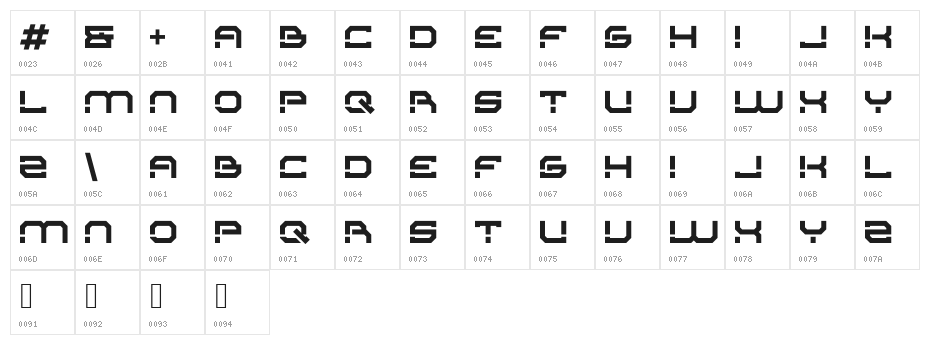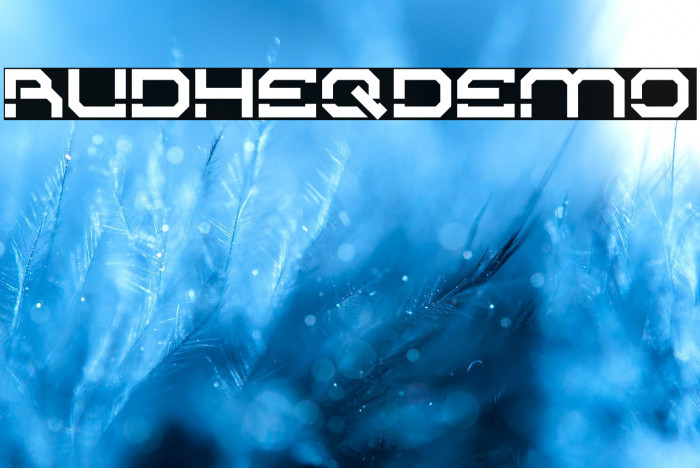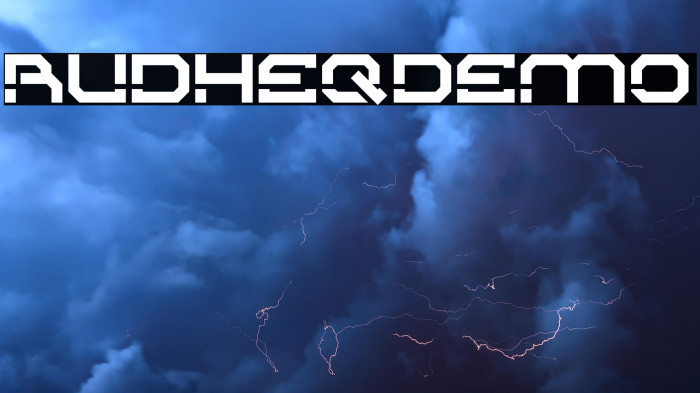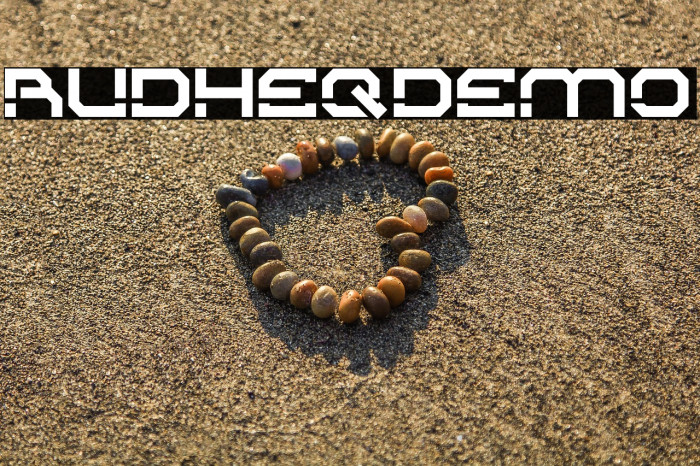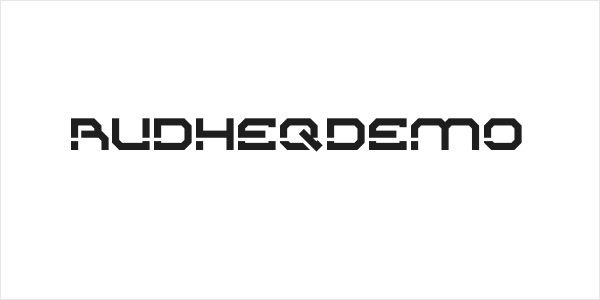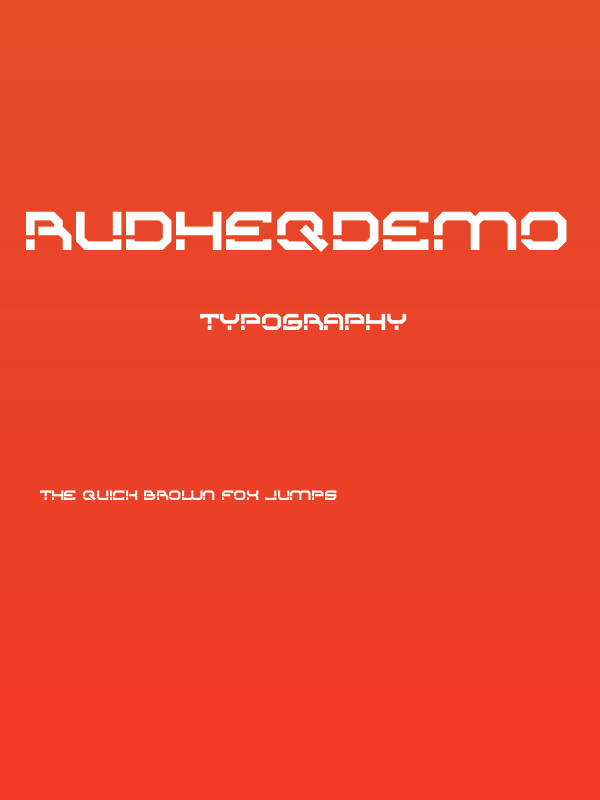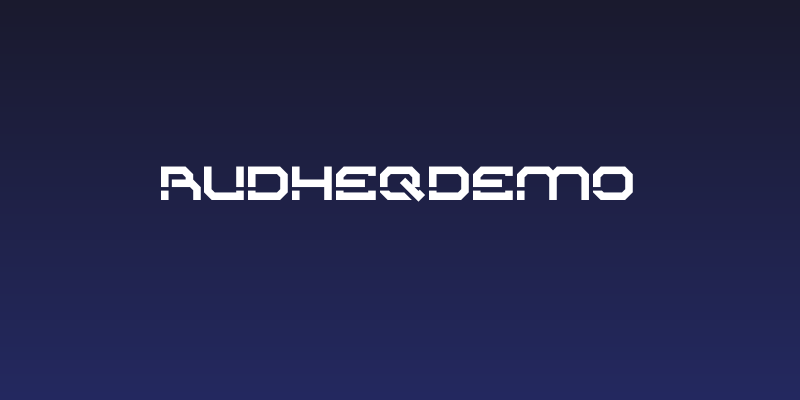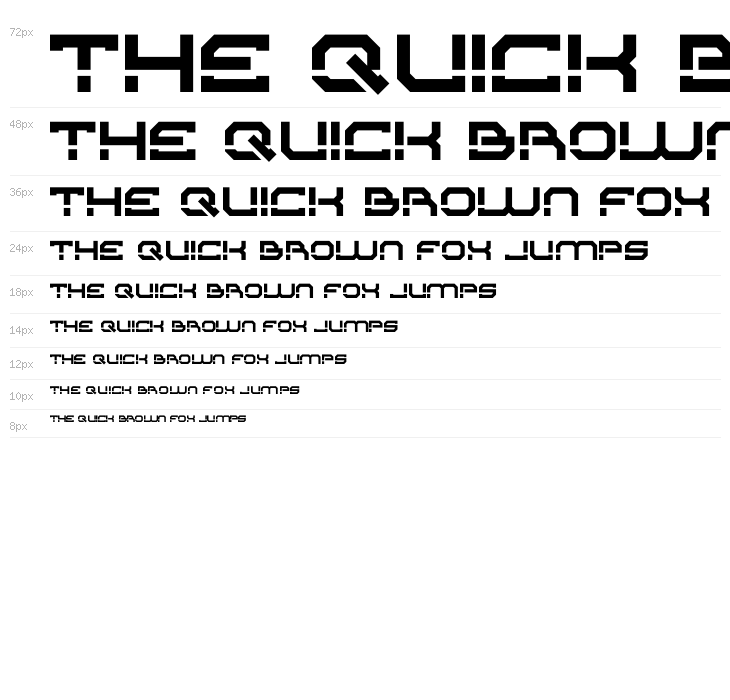
RudheqDemo Font
RudheqDemo Description
This font features a futuristic and geometric design, characterized by its bold, angular shapes and distinct cut-out sections within each character. The uppercase letters are uniform in height, with a consistent width that gives the typeface a monospaced appearance. The lowercase letters maintain the same geometric style, offering a cohesive look across both cases. Numbers and special characters follow the same design principles, ensuring a unified aesthetic throughout. The font's unique style makes it stand out, ideal for projects that require a modern and tech-inspired look.
| Proposed Projects | Ideal for tech branding, video game titles, sci-fi posters, and digital interfaces. |